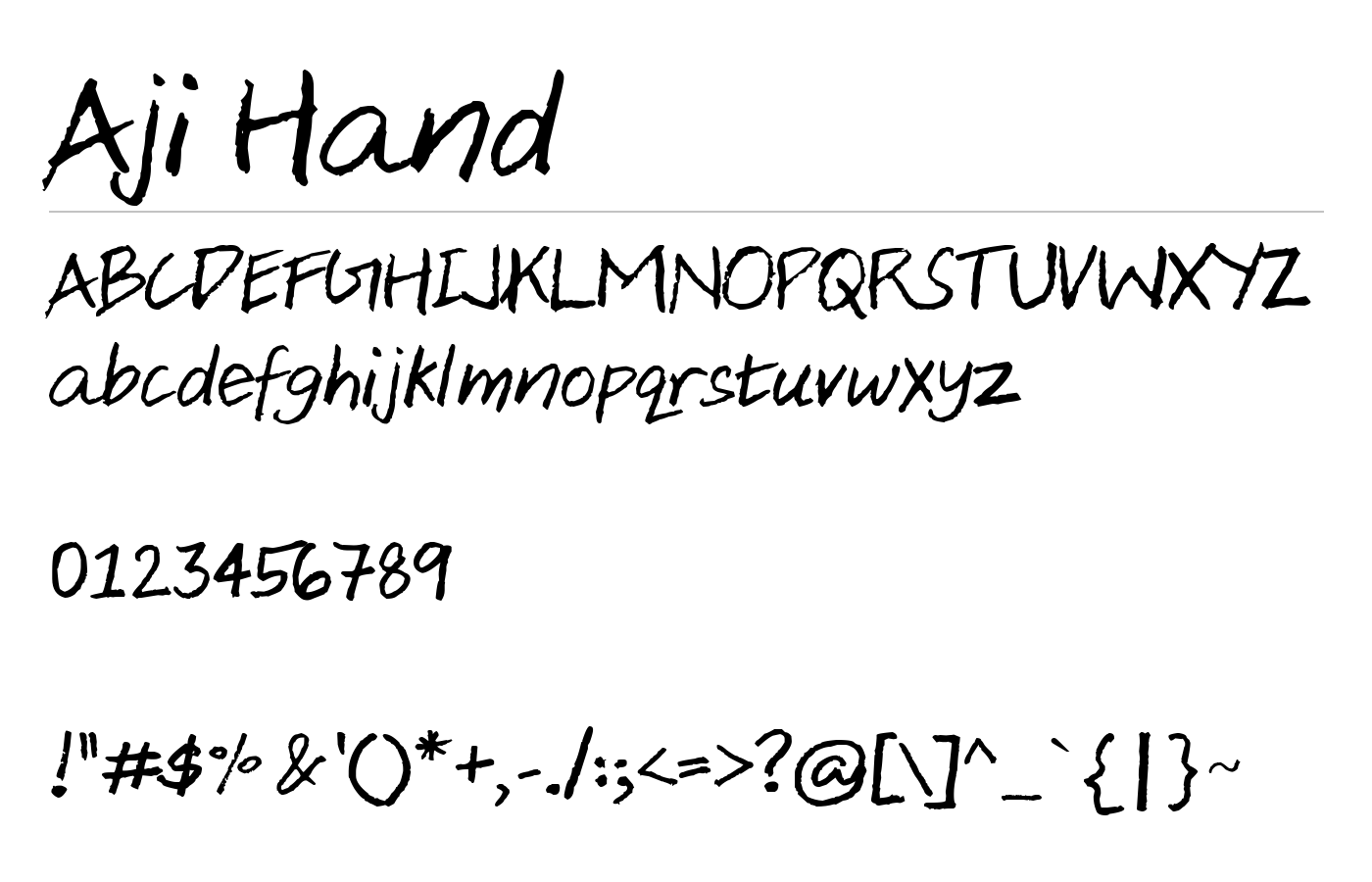
Aji Hand Font is a casual, playful handwritten sans serif typeface with a slightly rough, textured stroke that mimics natural brush or ink pen writing. Its irregular letterforms and moderate x-height create an informal and approachable feel, making it well suited for creative projects, personal branding, and fun, relaxed designs. This font works best in headlines, logos, and packaging where a personal, hand-crafted touch is desired.
Aji Hand Font
About Aji Hand Font
| Designer | Ajith R |